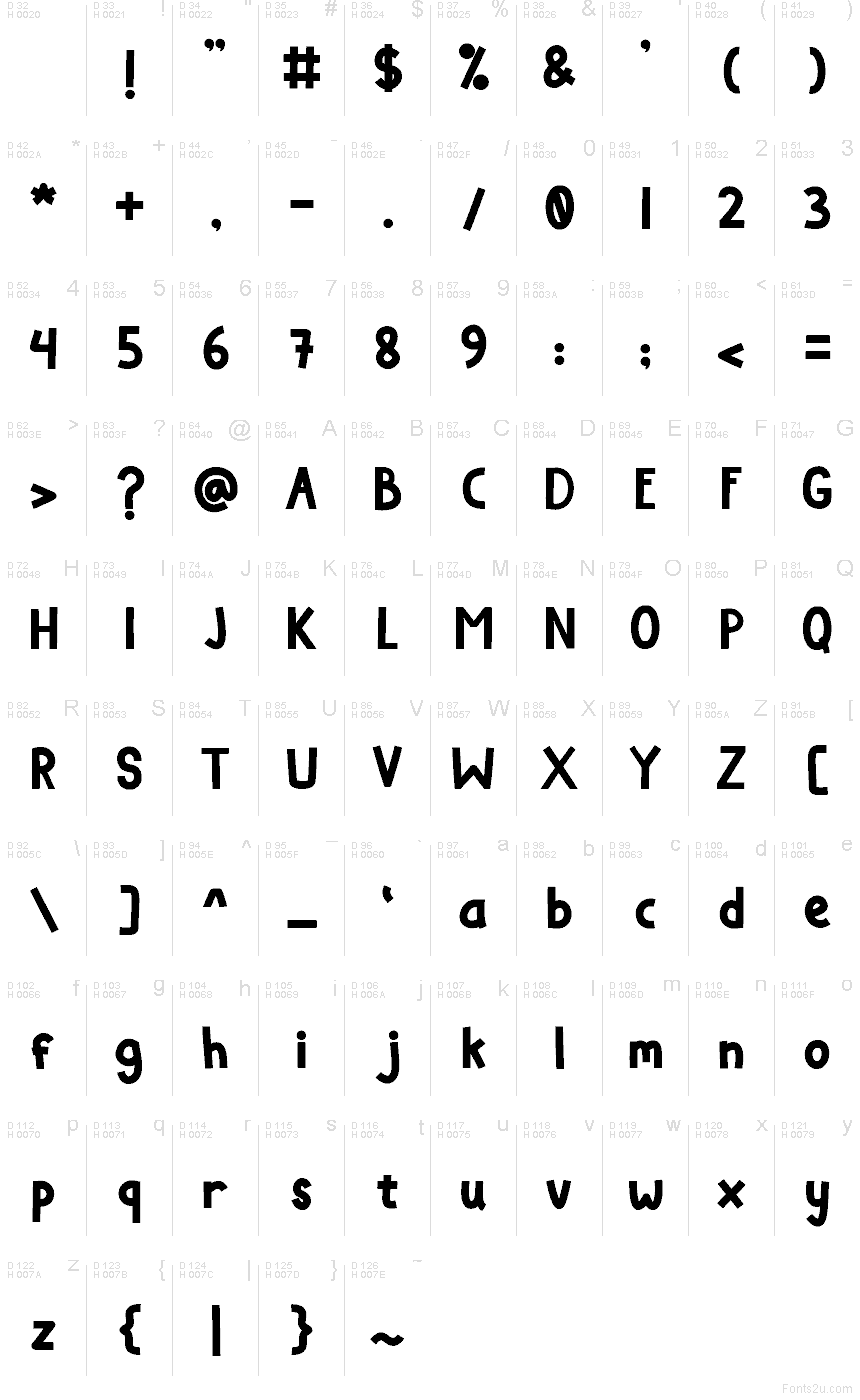
Notulen font by Tokokoo Studio is a free comic display typeface that gives you bold, hand-drawn energy without sacrificing readability. Its chunky, slightly uneven strokes feel like they’ve been brushed in thick marker, but the spacing stays neat and steady, so headlines stay clear even at a glance. The rounded corners and gentle wobble add warmth and personality, making text feel friendly rather than shouty.
Using Notulen, you can bring a playful edge to kids’ book covers, event posters, classroom materials, YouTube thumbnails, packaging, and social media graphics. This free font shines when used big and confident, then paired with a clean sans serif for supporting text. Set Notulen in all caps for loud, punchy titles, or mix case for a more casual, handwritten vibe.